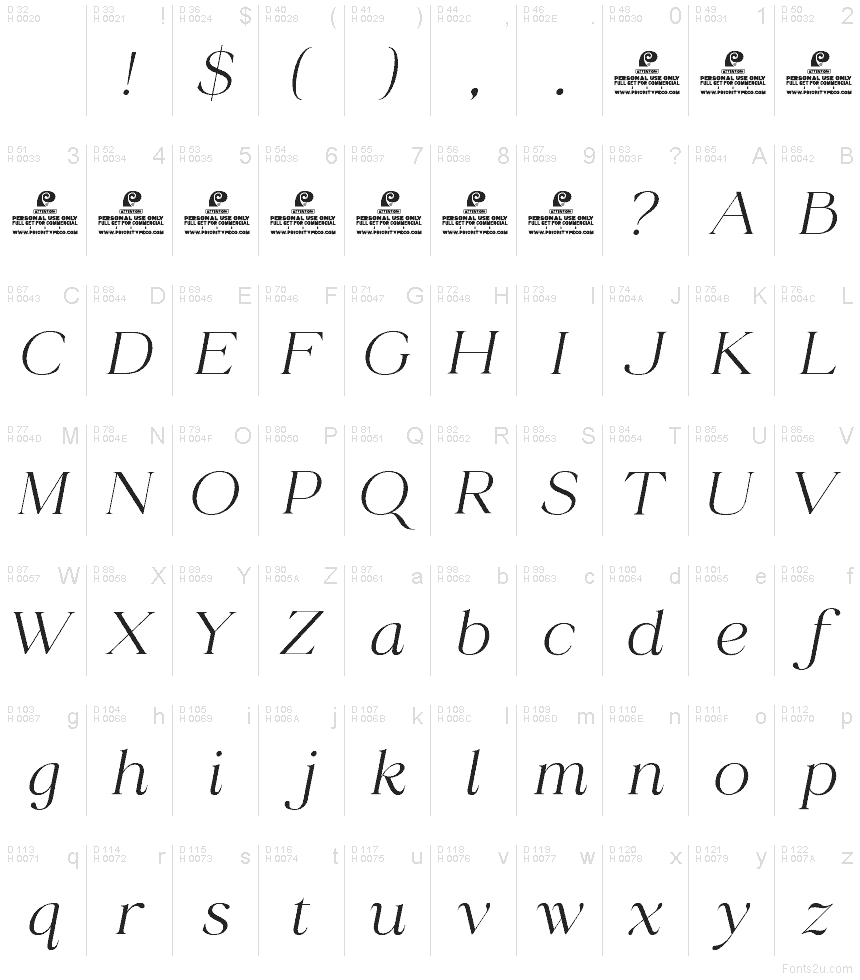
Radiant Charisma DEMO Italic
Radiant Charisma Italic font by Prioritype Co is an elegant serif font with refined curves and a subtle flair. With sophisticated details and a timeless appeal, this typeface can make your texts look classic and professional. As for its design inspiration, it combines traditional craftsmanship with modern sensibilities to deliver versatile yet highly legible characters.